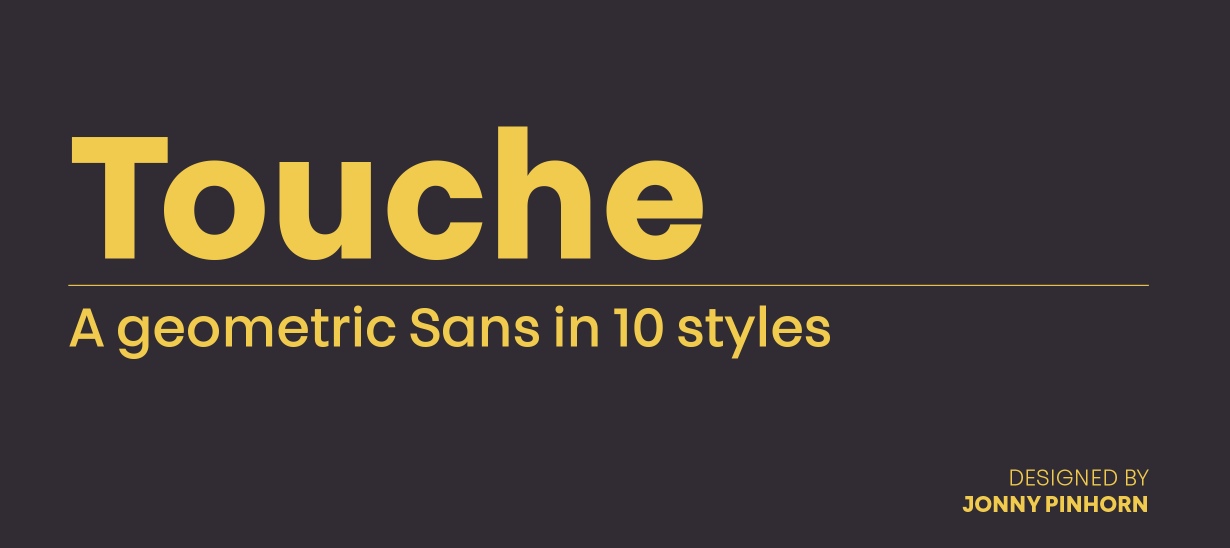
Touche Font
Touche Font is perfect for sophisticated branding projects, elegant fashion campaigns, luxury lifestyle marketing, refined editorial layouts, upscale restaurant communications, premium beauty products, high-end wedding materials, and stylish advertising applications. This distinguished typeface works beautifully in both digital applications and print media where refined elegance and sophisticated charm are essential design elements.
What makes Touche Font so exciting is its exquisite interpretation of contemporary sophistication through graceful letterforms that seem to possess an inherent sense of style and refined taste. The font features elegant characters with sophisticated proportions, subtle curves, and polished details that create an atmosphere of understated luxury and cultured refinement. Its chic personality and fashionable heritage make it ideal for brands seeking to communicate premium quality, sophisticated taste, and the discerning aesthetic preferences of affluent audiences who appreciate subtle elegance and refined design sensibilities.
The Touche Font family includes multiple weight variations from light to bold, along with elegant italic styles and sophisticated alternates. Each style maintains the typeface's refined character while offering comprehensive character sets including stylish numerals, fashion-inspired punctuation marks, and special symbols designed to enhance luxury communications and sophisticated branding efforts across various upscale contexts.
This remarkable typeface represents the perfect marriage of contemporary sophistication and timeless elegance for luxury and lifestyle industries. Whether you're developing high-end fashion brand identities, creating luxury hospitality materials, or designing premium lifestyle campaigns, Touche Font Free Download provides the sophisticated charm and versatility needed to captivate discerning audiences. The font's refined appeal makes it particularly effective for luxury fashion houses, upscale restaurants, premium beauty brands, and businesses targeting sophisticated consumers who value elegance and refined aesthetic experiences.
The carefully crafted sophisticated details and optimized elegant performance in Touche Font ensure both premium appeal and clear communication across all luxury applications. Its refined presence makes it perfect for upscale branding, sophisticated marketing materials, and elegant communications where its full stylish character can create lasting impressions with audiences seeking sophistication, refinement, and the subtle luxury of impeccable taste.